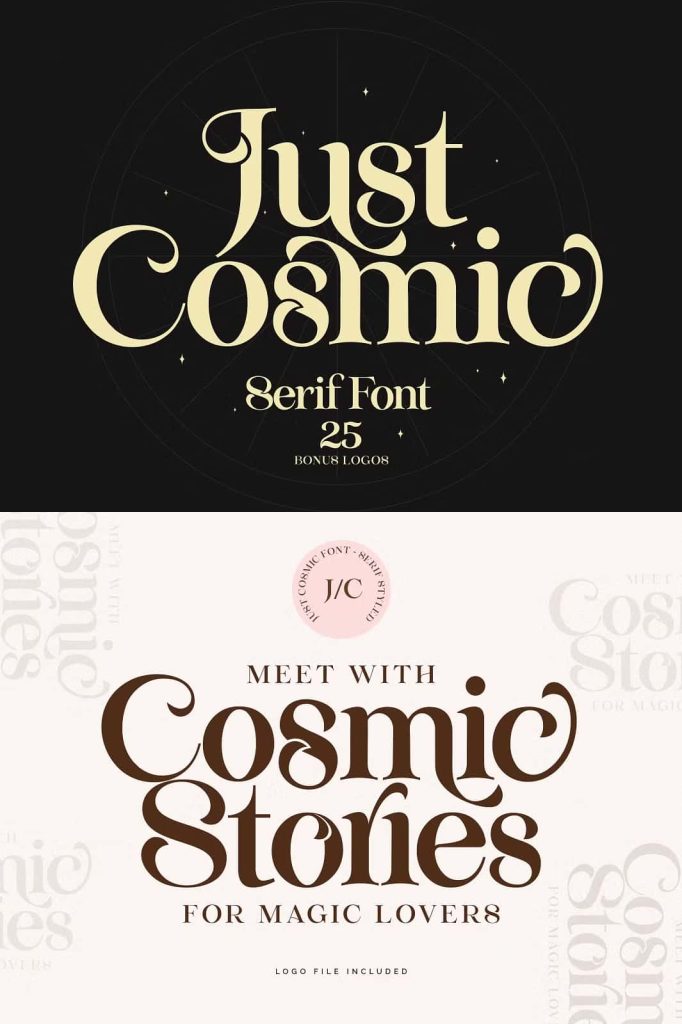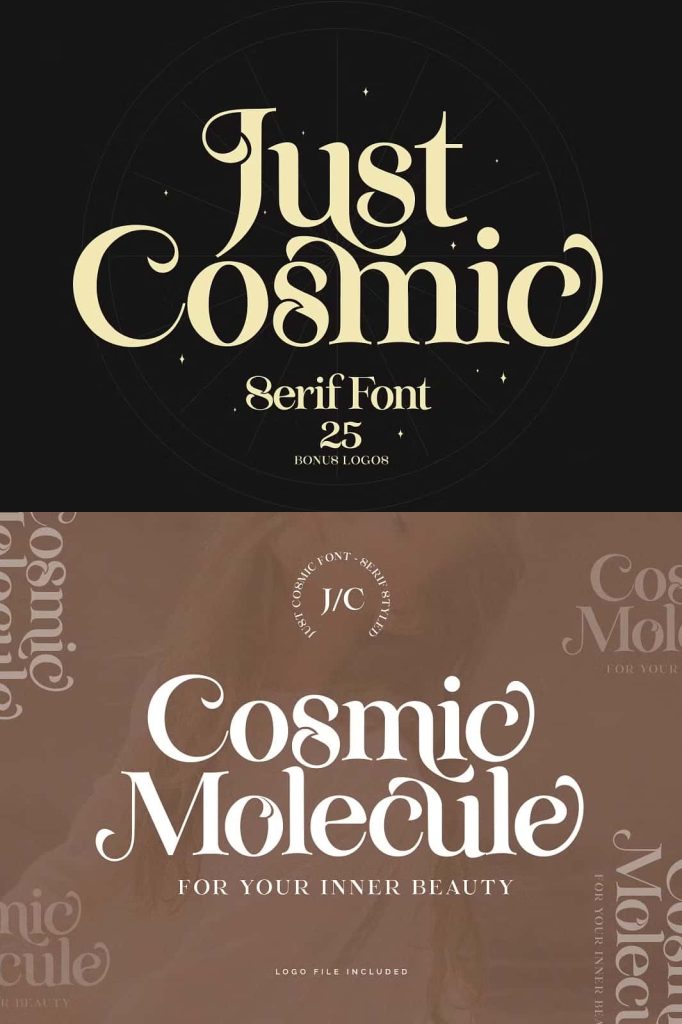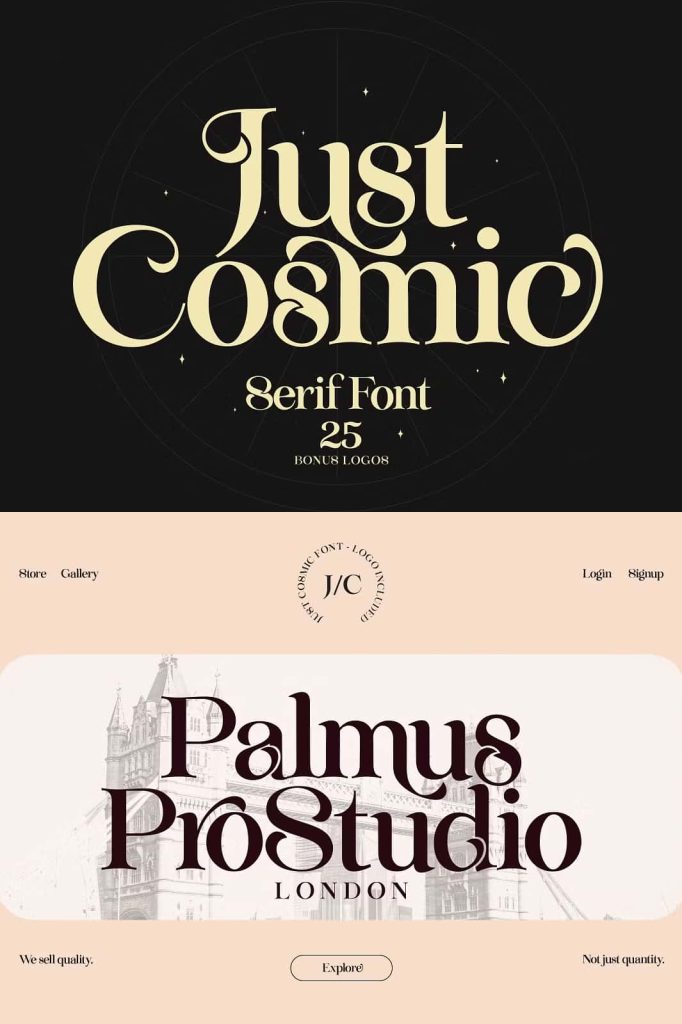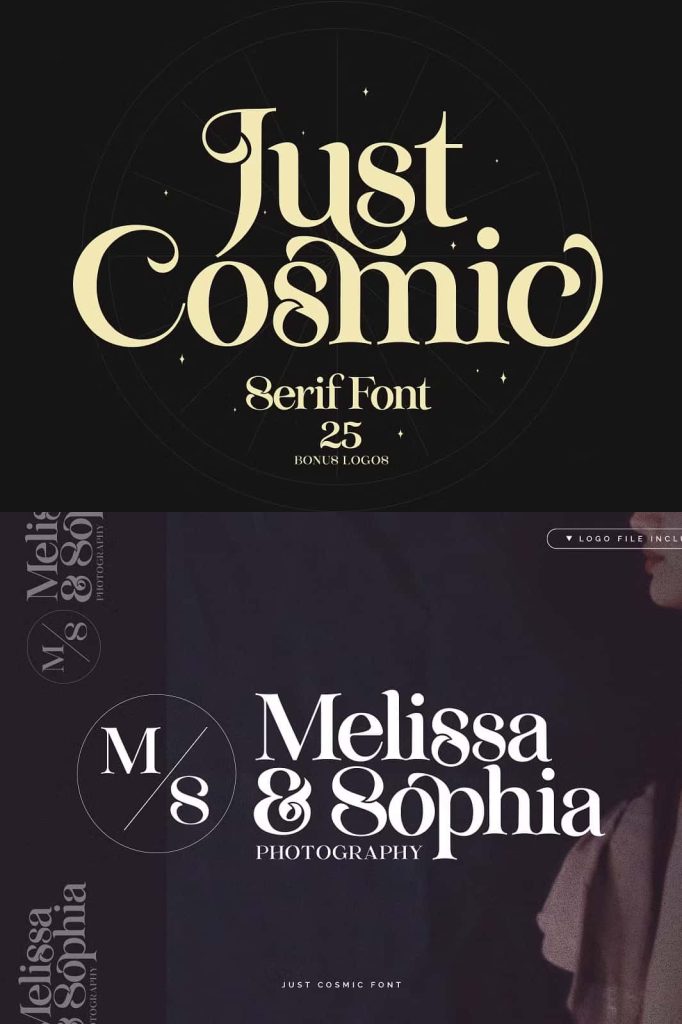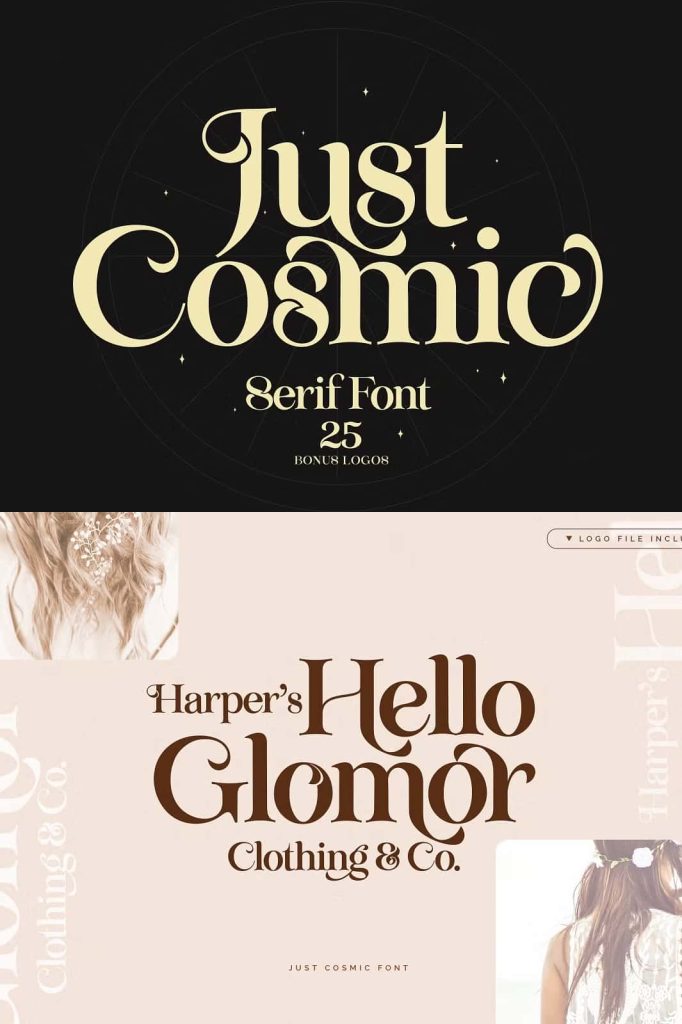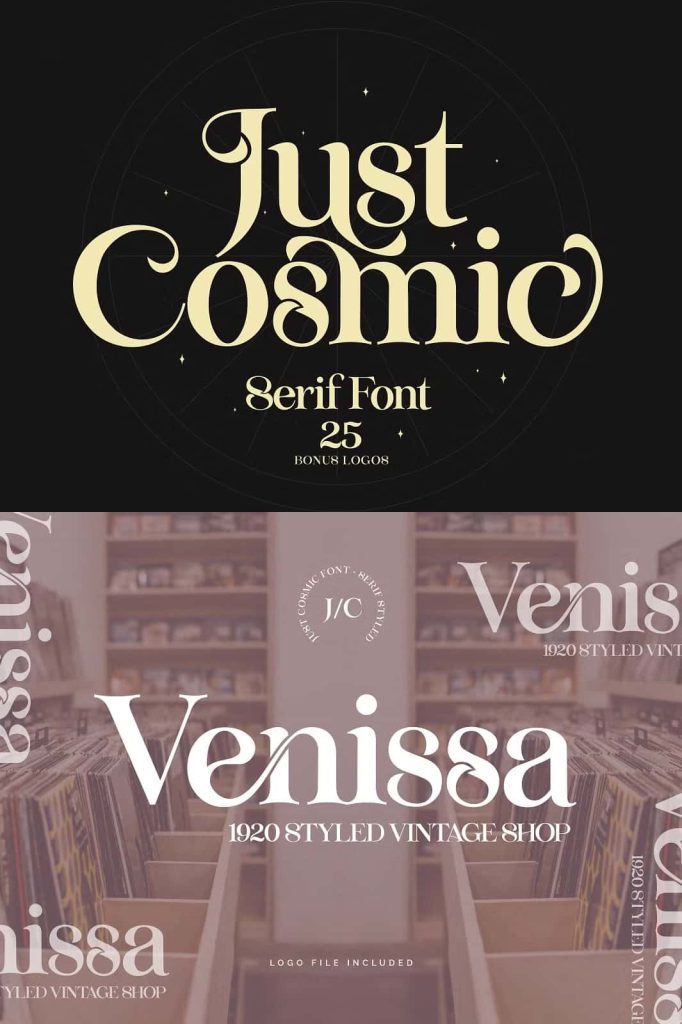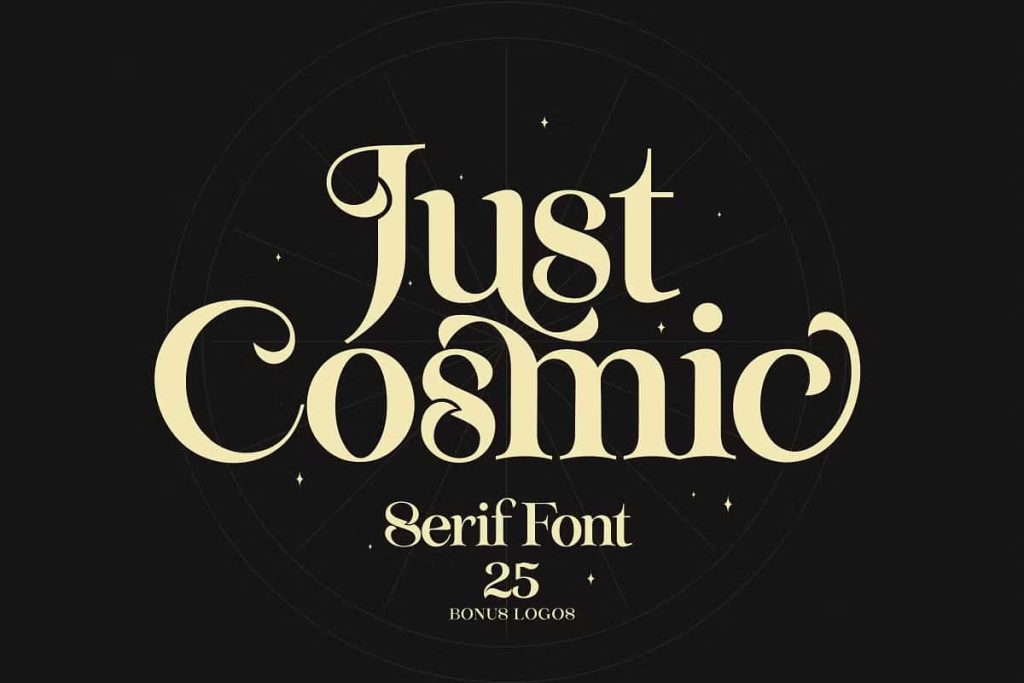
Just Cosmic Font + LogosleastedJune 25, 2025Fonts Just Comic is a magical modern vintage font will stylistic alternates and beautiful cutout ligatures. Download